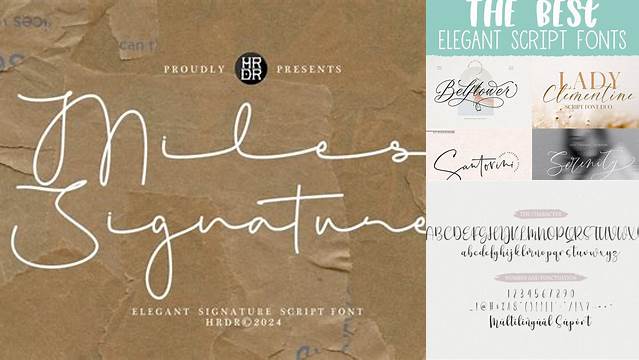
Miles Elegant Script Font Free Download
Hey everyone! Today, we're diving headfirst into the wonderful world of typography, specifically focusing on the Miles Elegant Script Font and how you can snag a free download. This font is an absolute gem, perfect for adding a touch of sophistication and flair to your creative projects. Whether you're a seasoned designer or just starting out, the Miles Elegant Script Font is a fantastic tool to have in your arsenal. We'll explore its features, where to find it, how to use it, and even some design inspiration to get those creative juices flowing. Ready to elevate your designs? Let's get started!
Unveiling the Beauty of Miles Elegant Script Font: A Closer Look
Right off the bat, let's talk about what makes the Miles Elegant Script Font so special. This font isn't just any ordinary script; it's crafted with a delicate balance of elegance and readability. Its flowing strokes and graceful curves make it ideal for projects that demand a touch of class, from wedding invitations and branding materials to website headers and social media graphics. The font's inherent beauty lies in its ability to convey a sense of luxury and sophistication without being overly complicated. Think of it as the perfect blend of modern and classic, giving your designs a timeless appeal. The Miles Elegant Script Font often includes a variety of stylistic alternates, swashes, and ligatures, allowing for customization and unique looks. These extra features give you the flexibility to create truly bespoke designs that stand out from the crowd. You can swap out certain letters for more ornate versions, add flourishes to the beginning or end of words, and connect letters in interesting ways to add personality and flair. The font's versatility extends to its use in various software programs like Adobe Photoshop, Illustrator, and even simpler platforms like Canva. This widespread compatibility means you're not limited in how you use it. Regardless of your preferred design tool, you can seamlessly integrate the Miles Elegant Script Font into your workflow. Furthermore, the font's design supports both print and digital applications, ensuring that your projects look stunning whether they are displayed on a screen or printed on paper. The elegant and legible design ensures that your message is not only visually appealing but also easily understood by your audience. This makes Miles Elegant Script Font a reliable choice for projects where readability and visual appeal are equally important. The attention to detail in the design of the font speaks volumes about its quality. The careful consideration of each letter's form and how it interacts with others adds to the font's overall harmony and beauty. The meticulous craftsmanship makes Miles Elegant Script Font a valuable asset for designers looking to infuse their work with a touch of sophistication and artistry. The font encourages you to be creative with your use of color, texture, and layout. It encourages experimentation and finding unique ways to make your designs stand out. The Miles Elegant Script Font is not just a font; it's a tool that empowers you to express your creativity and bring your design visions to life. It allows you to create designs that are both elegant and practical. It’s a font that can transform a simple text into a piece of art, making your designs more engaging and memorable. It's a smart investment for anyone looking to make their mark in the design world. The attention to detail, the versatility, and the overall beauty of the font make it a standout choice. This elegant script font, with its delicate lines and graceful curves, is more than just a collection of letters. It is a carefully crafted work of art, designed to bring a touch of sophistication and refinement to any project. Its ability to add a personal touch to your projects makes the Miles Elegant Script Font a must-have asset. It empowers you to create designs that not only look beautiful but also resonate with your audience on a deeper level.
Exploring the Features and Characteristics of Miles Elegant Script Font
Let's dive a bit deeper into the features that make the Miles Elegant Script Font a go-to choice for many designers. First off, the most striking feature is its elegant, flowing script style. This is characterized by its graceful curves, connecting strokes, and a generally handwritten appearance. This gives your text a personal, inviting feel, which is perfect for projects where you want to connect with your audience on an emotional level. Think of wedding invitations, where the font can set the tone for a romantic event, or branding materials, where it can convey a sense of luxury and exclusivity. Many versions of the Miles Elegant Script Font come with a wide range of alternate characters, allowing for greater customization. This means you can swap out individual letters for different variations, adding unique flourishes and swashes to create truly bespoke designs. This feature is especially useful for adding personality and flair to your projects, ensuring that they stand out from the crowd. Beyond the basic character set, you'll often find ligatures included in the Miles Elegant Script Font. Ligatures are special characters where two or more letters are combined into a single glyph. This creates a more fluid and visually appealing look, especially in connecting script fonts. Ligatures enhance the font's aesthetic and can contribute to a more natural and organic feel, as if the words were handwritten. The font's readability is another critical feature. While it's undeniably elegant, a good script font must also be easy to read. The best versions of the Miles Elegant Script Font are designed with legibility in mind, ensuring that your message is clear and easily understood, even at smaller sizes. It's about finding the perfect balance between style and function, so your design is beautiful and effective. The font's versatility is a key characteristic. It is often used in a variety of projects, from print to digital. Whether you're designing a website header, creating social media graphics, or printing business cards, this font adapts to various formats. This adaptability makes it a valuable asset for designers and anyone involved in visual communication. The inclusion of different weights and styles provides additional flexibility. You might find regular, bold, or even italic versions, allowing you to emphasize certain words or phrases within your design. This variety of styles gives you more creative control and helps you better communicate your message. The character set often includes support for multiple languages, so it's a fantastic option for global projects. Support for different languages is crucial, particularly when you work on projects targeting a diverse audience. This will ensure that your design resonates with people from different cultural backgrounds. The Miles Elegant Script Font includes the detailed consideration of the shape of each character. Every curve, stroke, and flourish is meticulously designed to ensure visual harmony and aesthetic appeal. The overall design process contributes to the distinctive look and feel of the font, which is a vital feature to have. This also ensures that the font is aesthetically pleasing and works well in different designs.
Comparing Miles Elegant Script Font with Other Script Fonts
When you're choosing a script font, you're not just picking letters; you're choosing a personality for your design. Let's compare the Miles Elegant Script Font to some other popular options out there to see how it stacks up. One common point of comparison is the